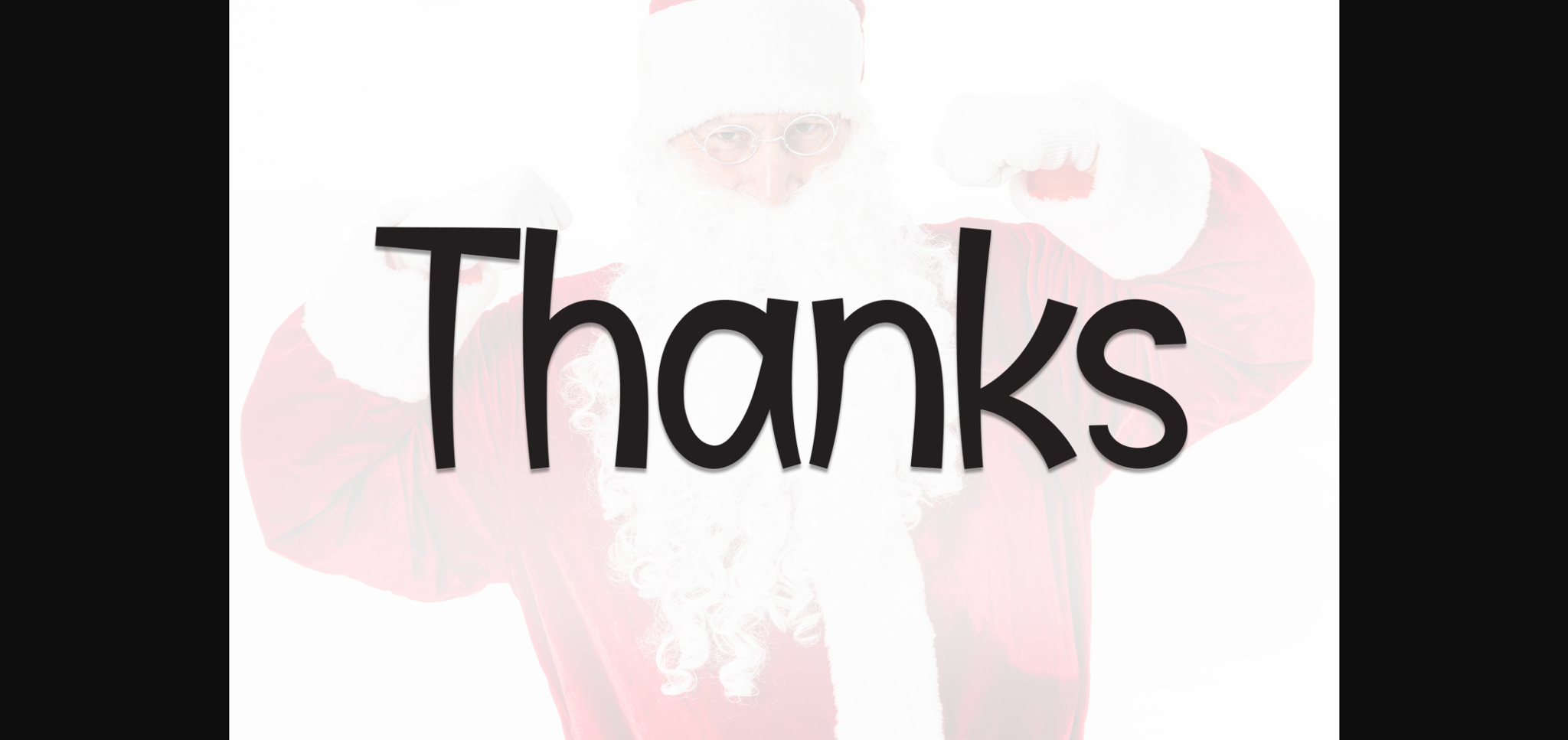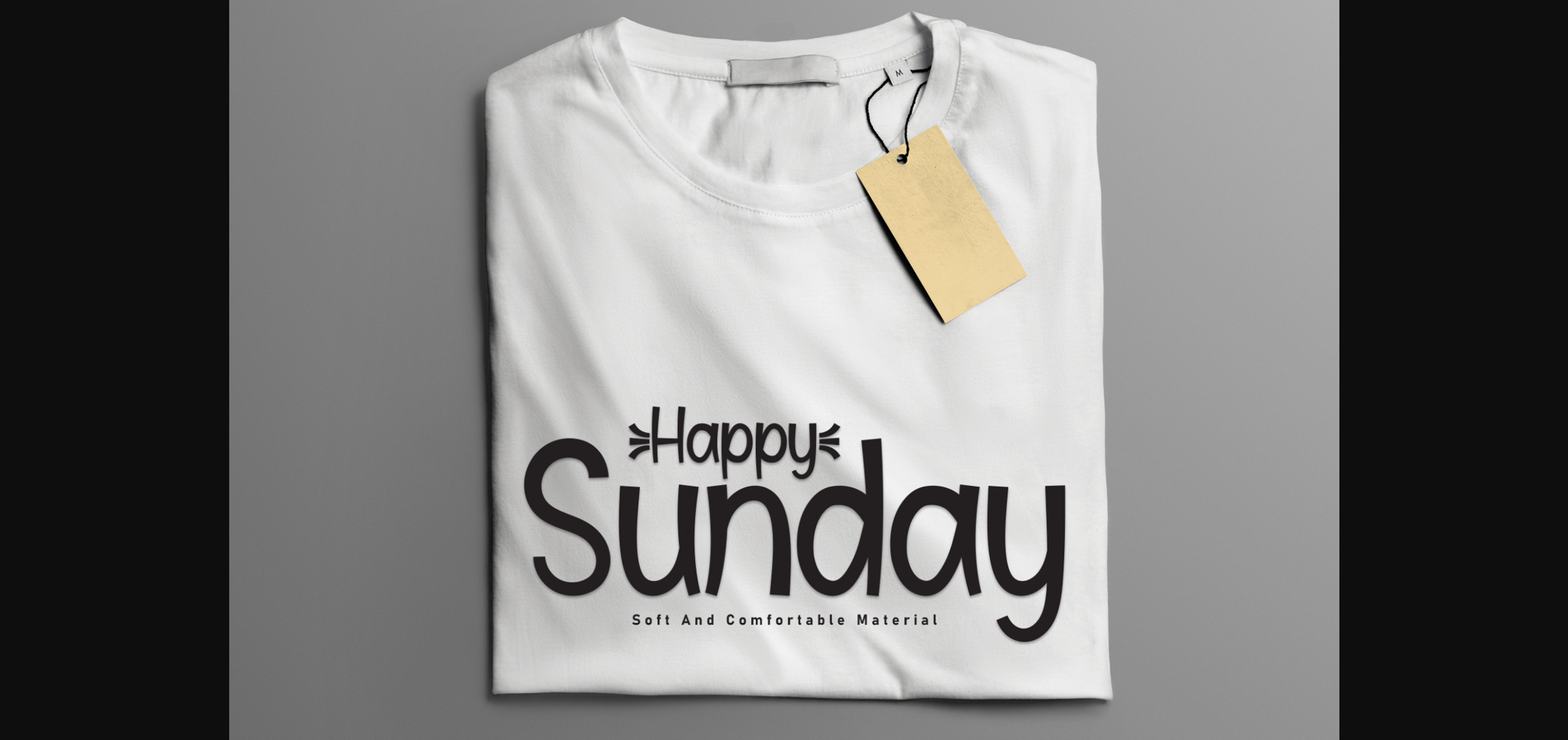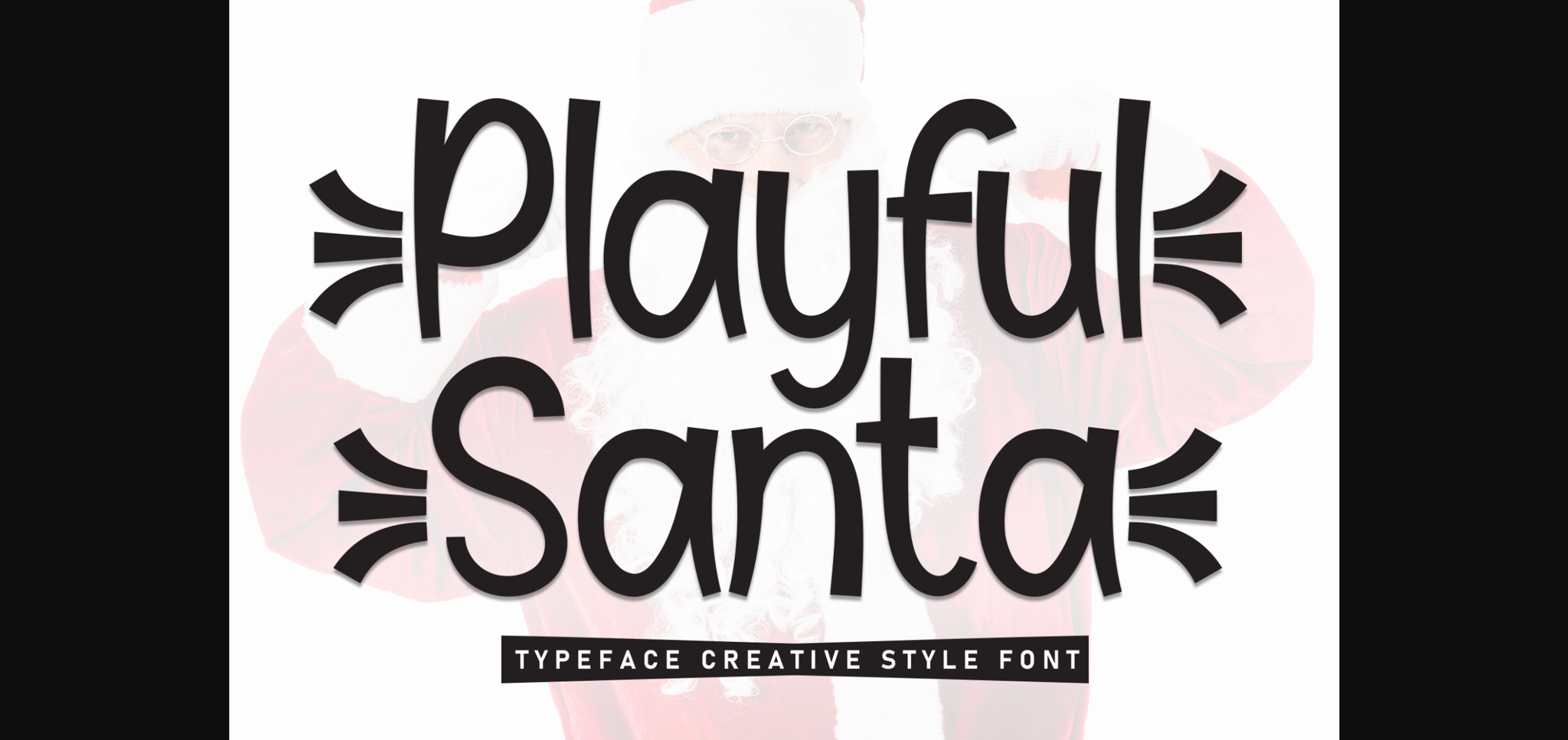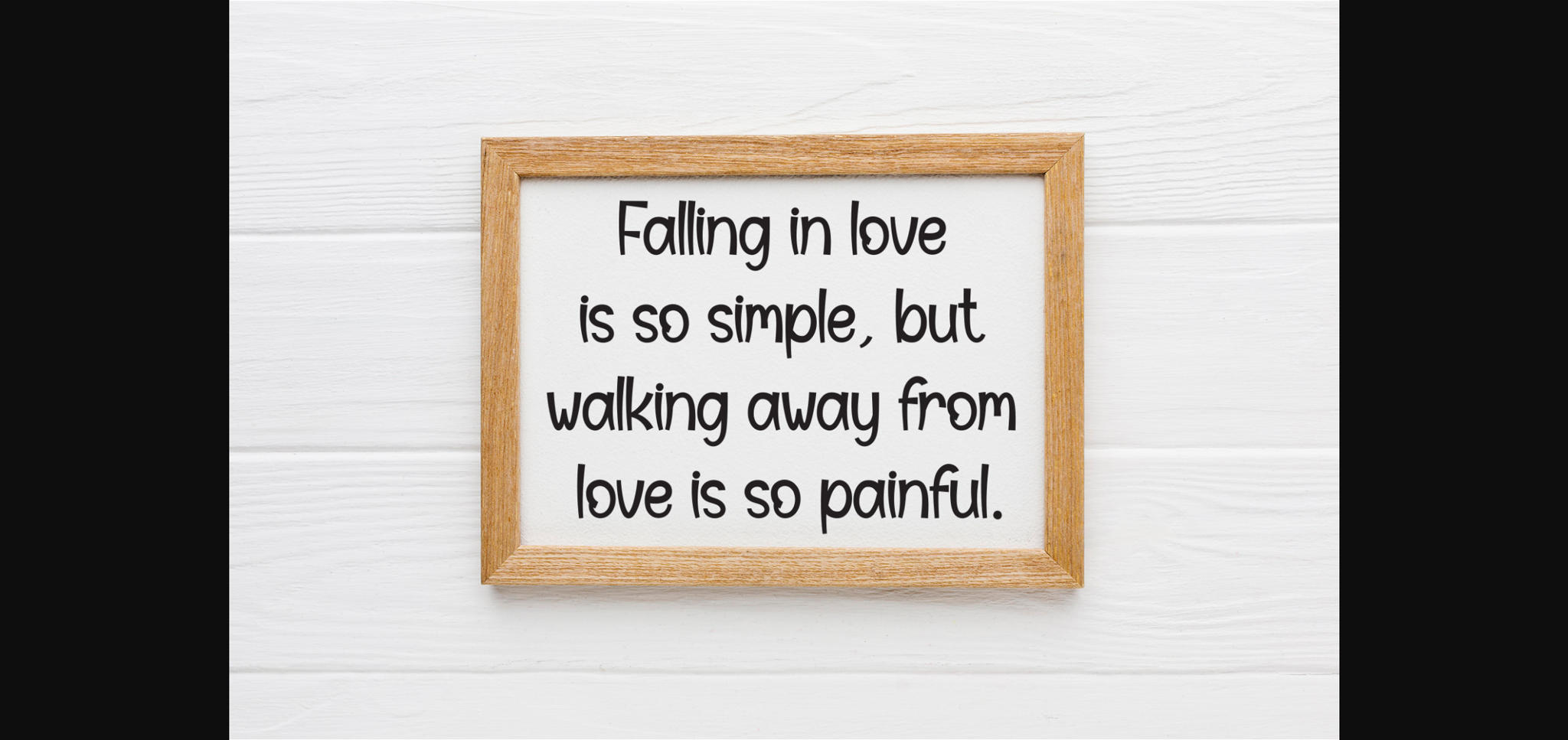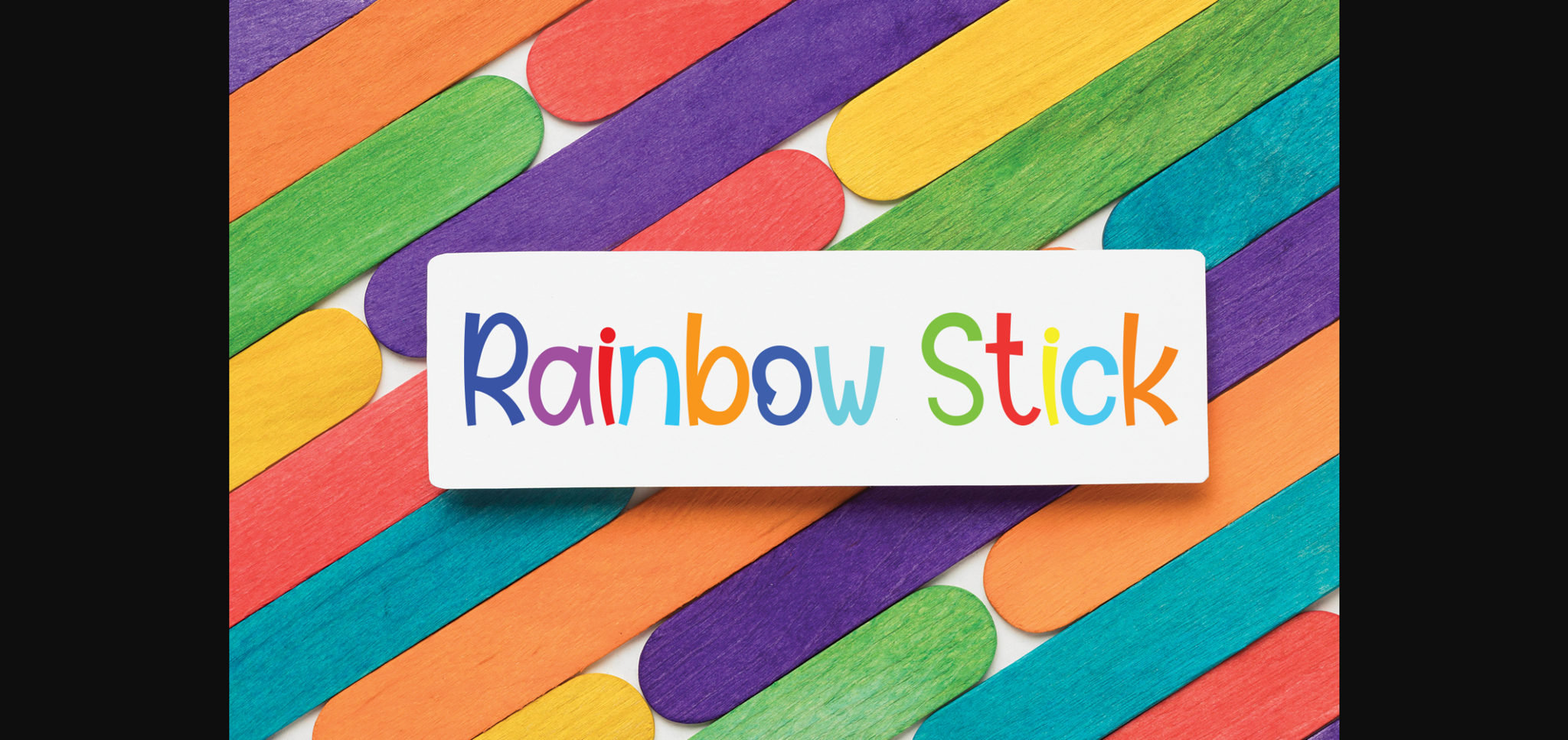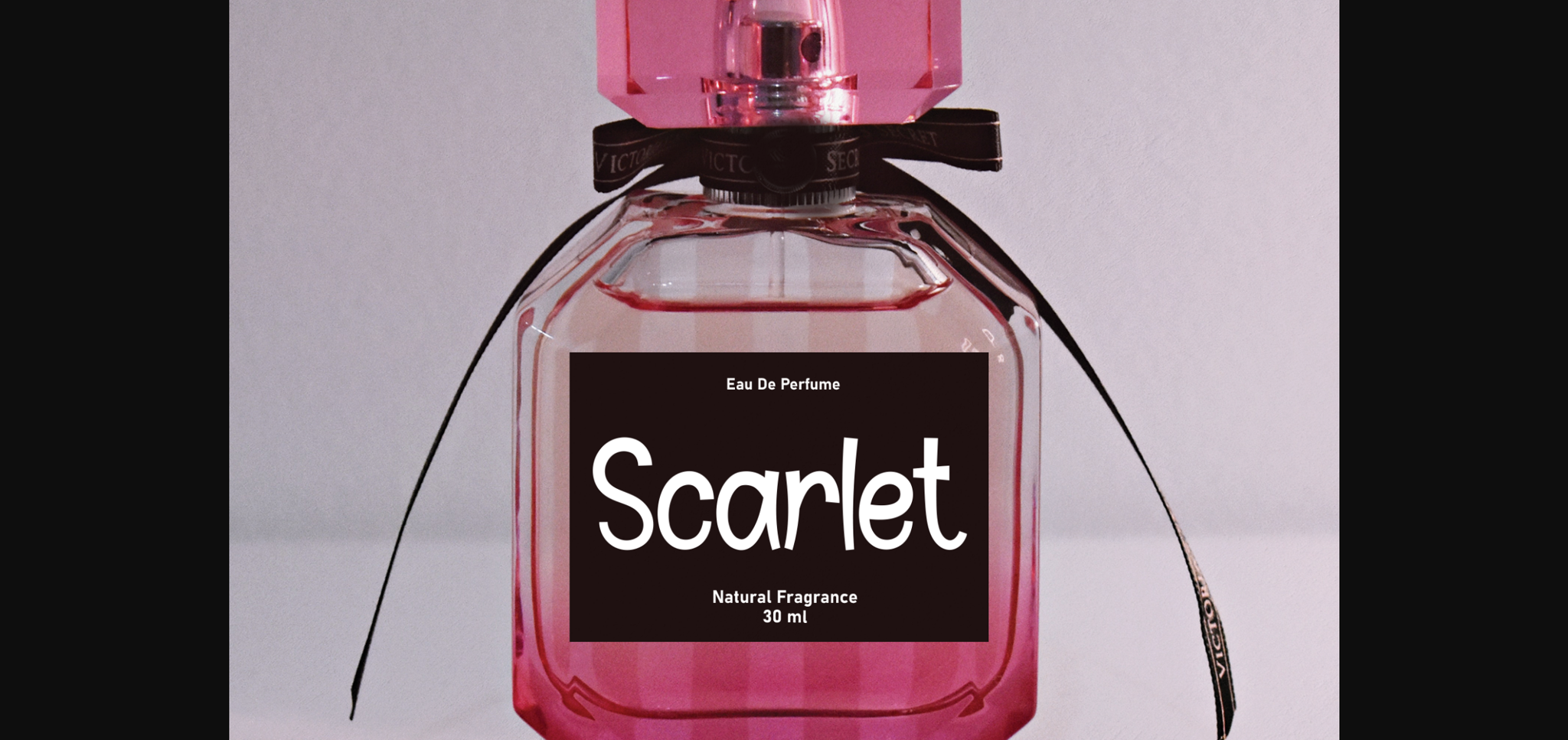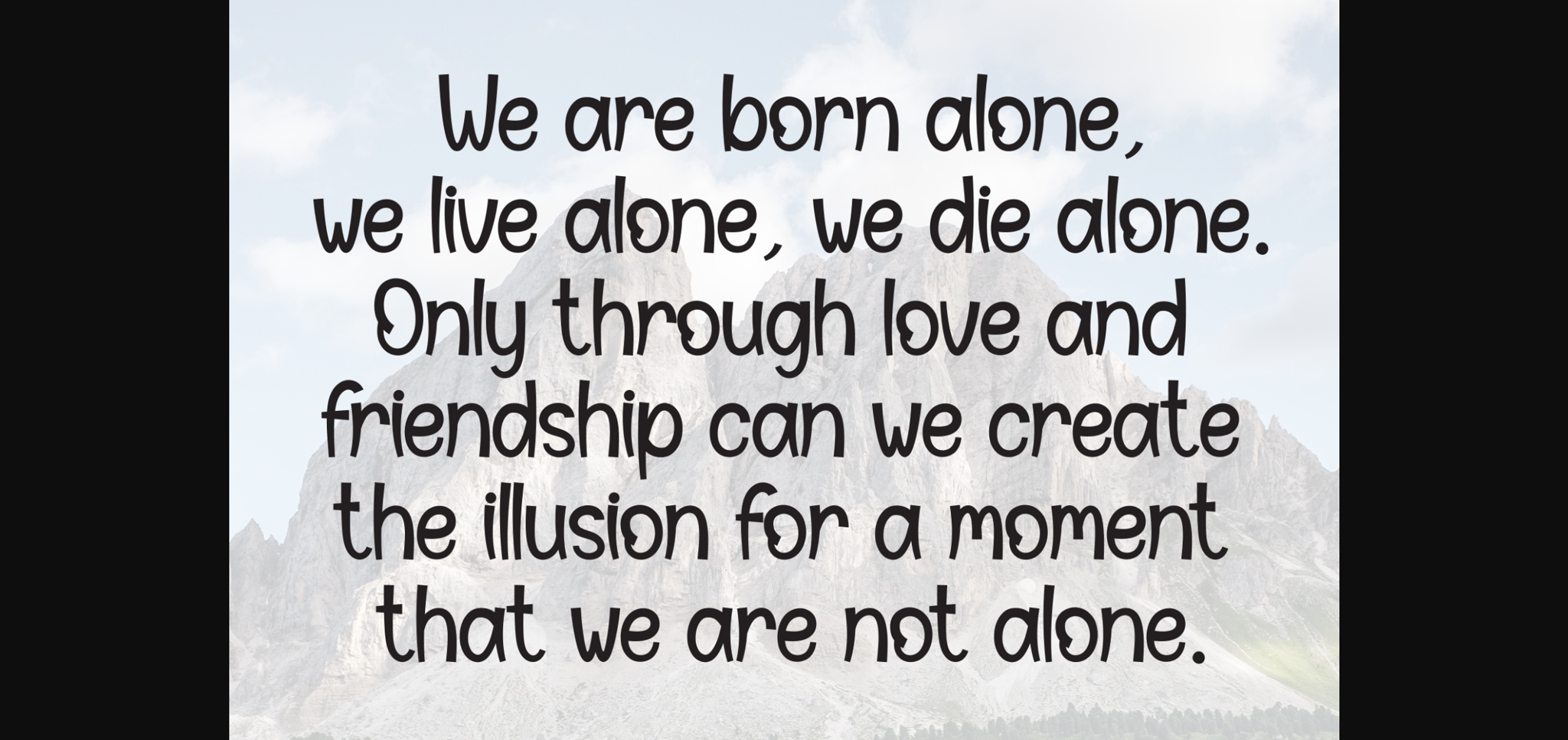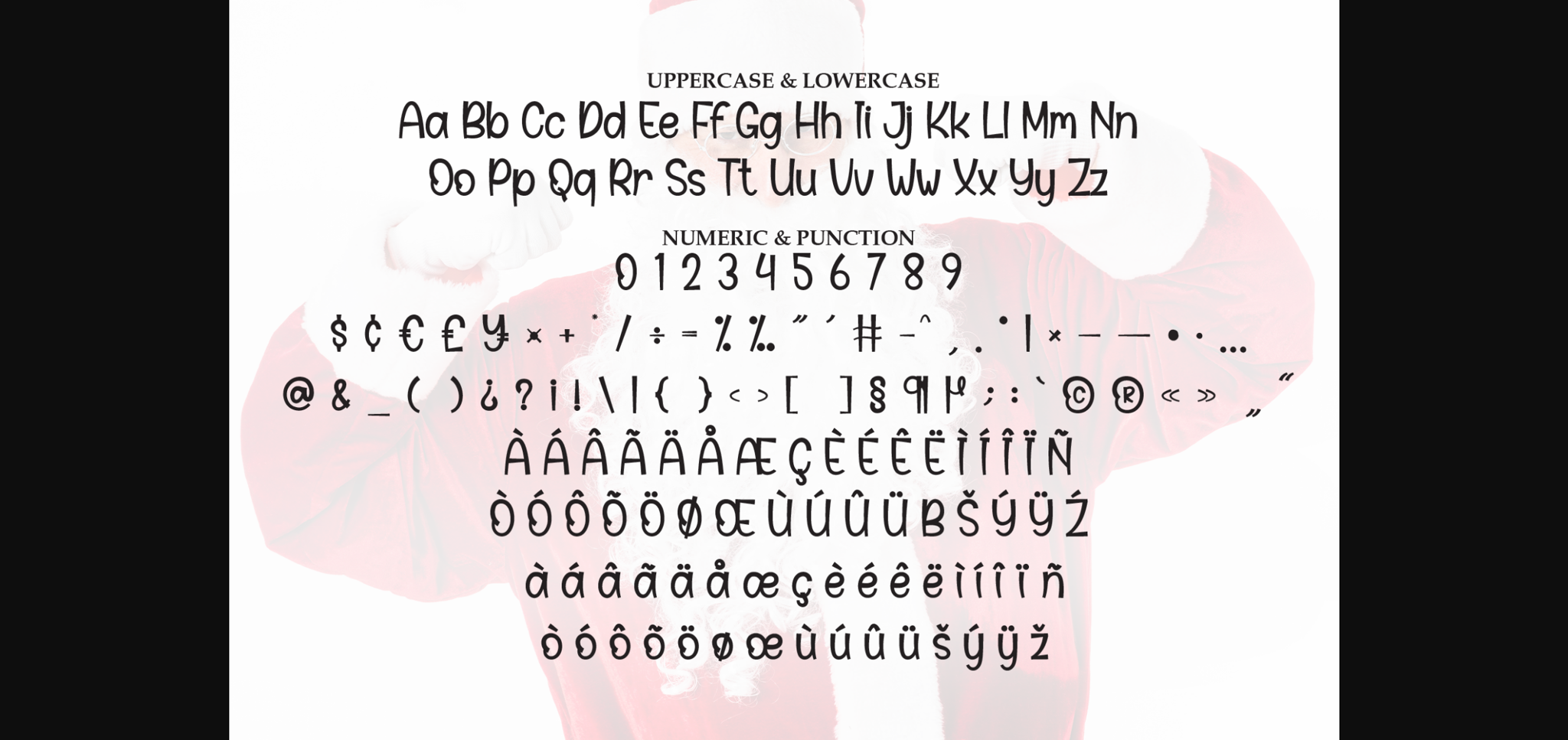
Playful Santa Font
About Playful Santa Font
Playful Santa is a friendly sans-serif font radiating warmth and cheer. With rounded edges and a whimsical demeanor, it captures the joyful spirit of the holidays. Ideal for festive designs, greeting cards, or any project where a lighthearted, approachable font is needed, Playful Santa adds a touch of merriment to your creations.